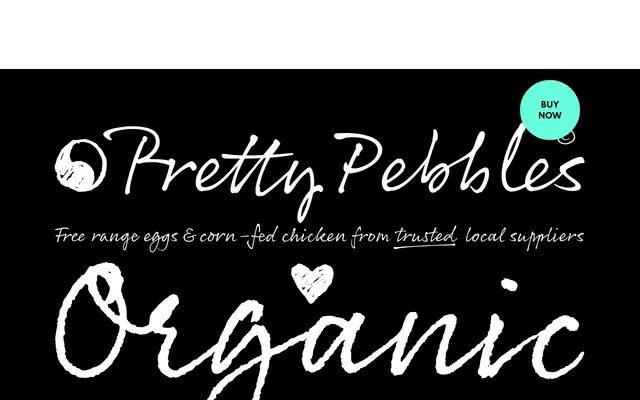
Rollerscript
A roller-pen handwriting script available in Smooth and Rough variants, built around over 100 automated ligatures for a convincing hand-drawn result.
Each character was drafted by hand with a roller pen before scanning and digitisation, giving the letterforms a more casual and informal quality than G-Type's nibbed-pen script Olicana. Pronounced pressure points at stroke starts, ends and joins contribute to its authenticity, reinforced by over 100 standard ligatures that automatically substitute common pairings like 'tt' and 'gg'. The family includes multiple underlines, sketched icons, arrows and emoticons, and covers an extended Latin character set across West European, Central and East European, Baltic and Turkish languages.
Rollerscript is a casual handwriting script drawn with a roller pen, producing informal, connected letterforms with pronounced pressure points and authentic join behaviour, placing it firmly in the casual script category.